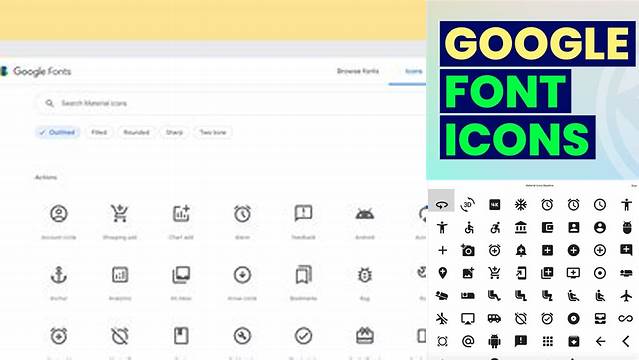
Google Fonts, Material Icons: A Complete Guide
Google Fonts, Googleapis, Icon Family, and Material Icons Round: A Comprehensive Guide
Hey guys! Ever wondered how to level up your website's look with awesome fonts and icons? Well, you're in the right place! Today, we're diving deep into the world of Google Fonts, Googleapis, icon families, and specifically, the Material Icons Round. We'll explore how these elements work together to make your site not just functional, but also visually stunning. Let's get started, shall we?
Google Fonts: Your Gateway to Typography Heaven
Google Fonts is like a massive library of fonts, all ready for you to use. And the best part? It's completely free! This service is a total game-changer because it offers a huge selection of fonts, each carefully designed and ready to be used on your website. This is super helpful because finding the perfect font can be time-consuming and expensive. This library is a go-to resource for anyone looking to add a touch of professionalism, personality, or just a little bit of extra flair to their digital space. Choosing the right font can really impact how your content is perceived and how visitors interact with your site. You might be thinking, "Why is typography so important?" Well, the fonts you choose can convey your brand's personality and enhance the overall readability and user experience. A well-chosen font is a silent but powerful way to communicate with your audience. Google Fonts makes it easy to find, preview, and implement fonts. You can easily browse the collection, filter by various categories (like serif, sans-serif, display, etc.), and sort by popularity, trending, and other criteria. Once you find a font you like, Google provides simple instructions for embedding it into your website using the googleapis
service, which we'll touch on later. The platform also offers information about each font's characteristics, such as its weight, style, and even its history, which helps you make informed decisions. Google Fonts is more than just a collection of fonts; it's a powerful tool for web designers and developers that helps create beautiful, accessible, and engaging online experiences. So, whether you're building a personal blog, an e-commerce store, or a corporate website, Google Fonts has something for everyone. Get ready to explore the endless possibilities of typography and transform your website into something truly special! You will learn how to select and use fonts that complement your brand identity. It really is a powerful way to improve your website's visual appeal.
Googleapis: The Secret Sauce for Font Integration
Alright, let's talk about Googleapis and how it helps bring those awesome Google Fonts to life on your website. Think of Googleapis as the delivery service for fonts. It's the infrastructure that makes it super easy for you to include these fonts in your project. It's the magic that makes the fonts actually appear on your site. When you select a font from Google Fonts, you're provided with a code snippet that you can include in your website's HTML. This snippet usually points to a URL provided by Googleapis. This URL tells your browser to download and apply the font you've chosen. The cool thing is that this method of serving fonts is incredibly efficient. Google's servers are optimized to deliver these fonts quickly and reliably. So, even if someone visits your site from across the world, they can still enjoy your chosen font. It's like having a global delivery network dedicated to your website's typography. Googleapis also handles font caching, which means that once a user's browser downloads a font, it will usually store it, so the next time they visit your site (or any other site that uses the same font), the font will load even faster. This is super important because it contributes to a better user experience. Fast loading times are critical for keeping visitors engaged. A slow-loading website can really hurt your website's usability and overall performance, potentially causing users to bounce, which is a no-go. The integration process is straightforward. You simply include the provided code snippet in the <head>
section of your HTML document, and voila! Your chosen font is ready to go. By using Googleapis, you're not just getting access to a vast library of fonts; you're also tapping into a reliable and efficient system designed to make your website look amazing. Googleapis provides a seamless experience so that you can use beautiful fonts without worrying about technical complexities. It's a simple and effective way to add visual appeal to your website. By streamlining the delivery of fonts, it improves the user experience, making your site more enjoyable for everyone. Ultimately, Googleapis simplifies the process, ensuring that your chosen fonts are displayed correctly and load quickly. This way, you can focus on what matters most: creating engaging content and a great user experience.
Icon Family: Elevating Your Design with Visual Communication
Now, let's dive into the wonderful world of icon families. Icons are not just cute little images; they're powerful tools that communicate messages, enhance user experience, and improve the overall look and feel of your website. Icon families are essentially collections of related icons that share a consistent design style. They're like a visual language that allows you to communicate information quickly and intuitively. Having a consistent style across all your icons is key, because it contributes to a cohesive and professional design. Using an icon family ensures that all your icons share the same visual characteristics, like line weight, style (e.g., filled, outlined), and level of detail. The uniformity creates a sense of unity and refinement throughout your website, which is great for your brand. There are tons of icon families out there, each with its unique style and focus. Some families offer a broad range of icons covering many different topics, while others specialize in particular areas, like social media or e-commerce. When choosing an icon family, it's essential to consider your website's purpose, your target audience, and the overall design style. Make sure the style aligns with your brand's identity. It's not enough to just use pretty icons. The icons should match your website's brand. Selecting the right icon family will make your website look professional and consistent. Icon families streamline your design process. Instead of designing each icon from scratch, you can use pre-designed icons that match your overall design. They can boost your website's visual appeal by providing attractive, easy-to-understand graphics. This not only saves you time and effort but also ensures that your icons are visually appealing. There are a bunch of different ways you can use them. Icons can serve as navigation elements, guiding users through your website, or be used to highlight important content. Using icons to represent key features, like a contact form or a shopping cart, makes your site easier to navigate. Icons are also great for conveying information more quickly and efficiently than text. They are perfect for explaining what your site does or highlighting critical features. Think about the icons you can use to complement your content. For example, a shopping cart icon to make your store more user-friendly. They can be integrated into your content to create a more user-friendly and visually appealing experience. When used effectively, icons can significantly improve user engagement and create a lasting impression. So, whether you're building a simple blog or a complex e-commerce platform, integrating an icon family can elevate your website's design and improve the overall user experience. They're a simple but powerful way to enhance the appeal and usability of your website.
Material Icons Round: A Deep Dive into Google's Icon Offering
Let's get specific now and focus on Material Icons Round, a fantastic offering from Google. This particular icon set is a part of the larger Material Design system and offers a comprehensive library of visually appealing and easily integrated icons. What makes Material Icons Round so special? First, it's designed with a modern, clean aesthetic that aligns with the overall Material Design philosophy, which focuses on simplicity and usability. The "Round" style features icons with rounded corners, giving them a friendly, approachable look. This stylistic choice contributes to a cohesive and harmonious design across your website. They are very simple and clean looking. They're incredibly easy to integrate into your website or app. Google provides several ways to use them, including web fonts, SVG files, and as part of the Material Design library for specific platforms like Android. The use of a web font makes these icons scalable and customizable, allowing you to change their size and color easily using CSS. That's fantastic! It makes it easy to adapt your content without compromising quality. This flexibility is huge for creating responsive designs that look great on any device. The Material Icons Round family covers a wide range of categories, from navigation and action to content and communication. This comprehensive nature means you'll likely find an icon that fits almost any need you have on your website or app. Whether you need an icon for a menu, a search function, or a contact button, you can usually find a corresponding icon within the Material Icons Round set. One of the biggest benefits of using Material Icons Round is that they're designed to look good and work well with the Material Design system. This consistency is helpful if you want your website to have a modern and user-friendly look. This makes Material Icons Round a great choice if you're looking to improve the visual appeal and functionality of your website. Material Icons Round is a versatile icon set that can be easily integrated into any web project. By providing a consistent, modern design, it allows developers to improve both user experience and visual appeal.
Implementing Material Icons Round on Your Website
Okay, time to talk about how you actually get these Material Icons Round on your website. It's pretty straightforward, and I'll walk you through it. First, you'll need to include the Material Icons font in your HTML document. The easiest way to do this is by adding a link to the Google Fonts stylesheet in the <head>
section of your HTML. This is the same process we discussed earlier for Google Fonts in general. The stylesheet tells your browser where to find the font files. Once the font is loaded, you can start using the icons by referring to their specific class names within your HTML. The Material Design website provides a complete list of all available icons along with their corresponding names. Let's say you want to use the "search" icon. You'll find its name on the Material Design website. You'll then include the icon using an <i>
tag with the material-icons-round
class and the specific icon name in your HTML code. For example:
<i class="material-icons-round">search</i>
In this code, the <i>
tag is used to denote an icon, and the material-icons-round
class applies the Material Icons font. The text "search" is the icon's name, which tells the browser which icon to display. Once the browser processes this code, the search icon will appear on your website. You can customize the appearance of your icons with CSS. For example, you can change their size, color, and add effects like hover states. You can easily make the icons bigger, smaller, or change their color. This is because they're based on fonts. The font-size